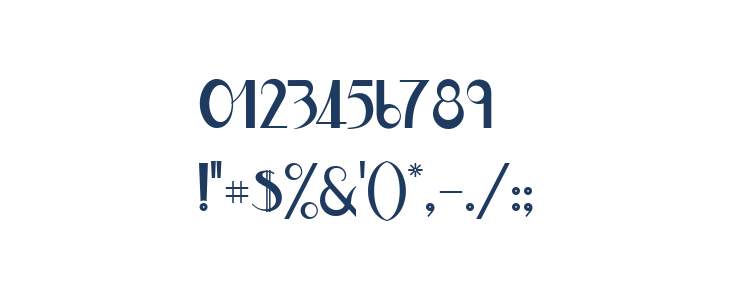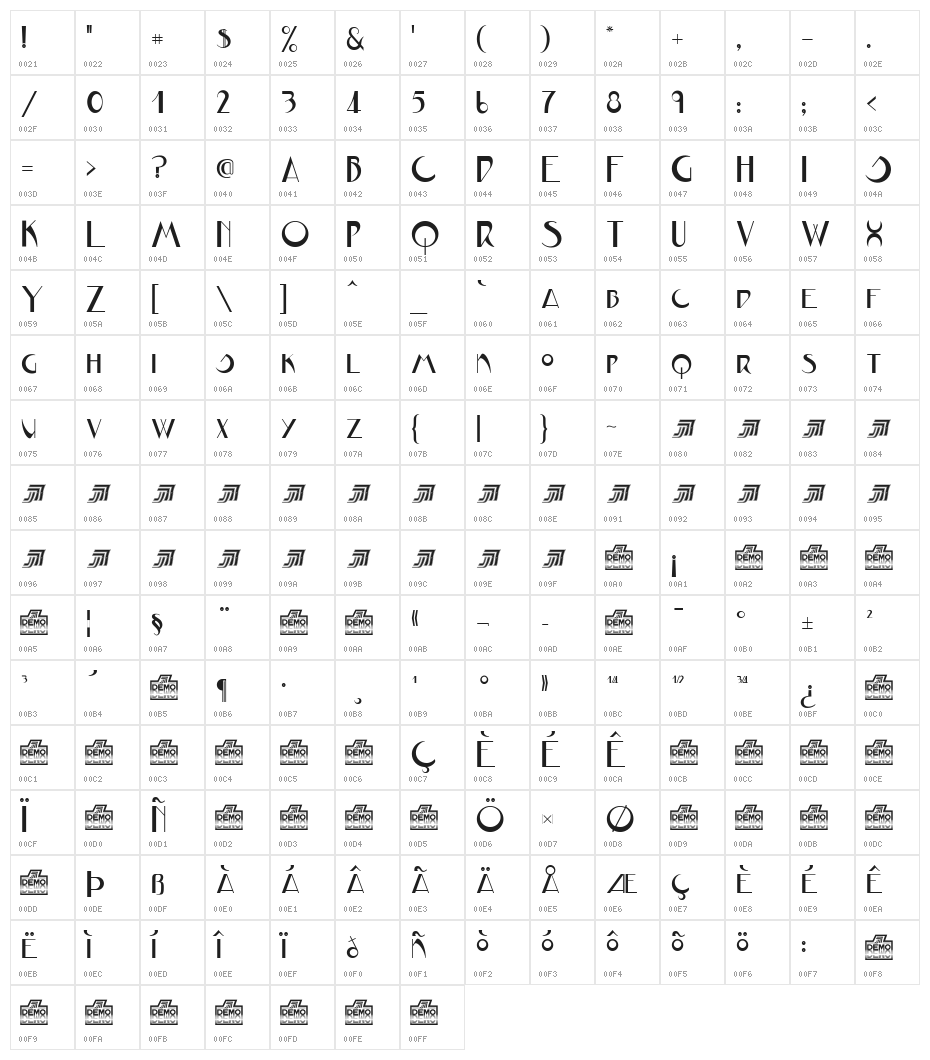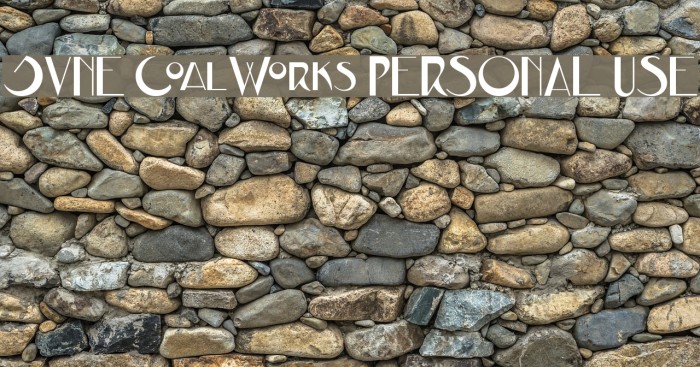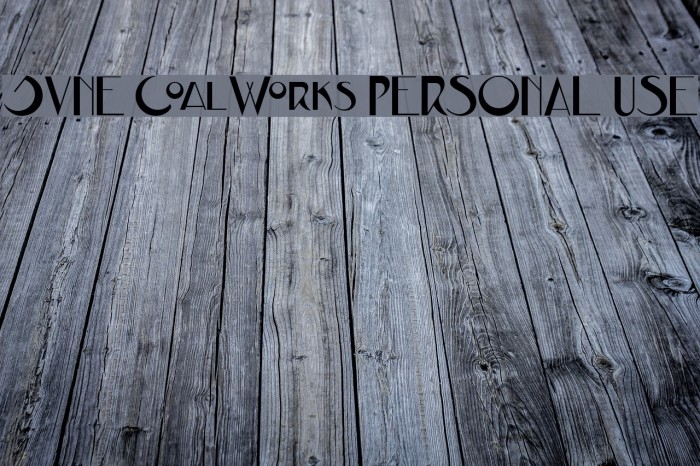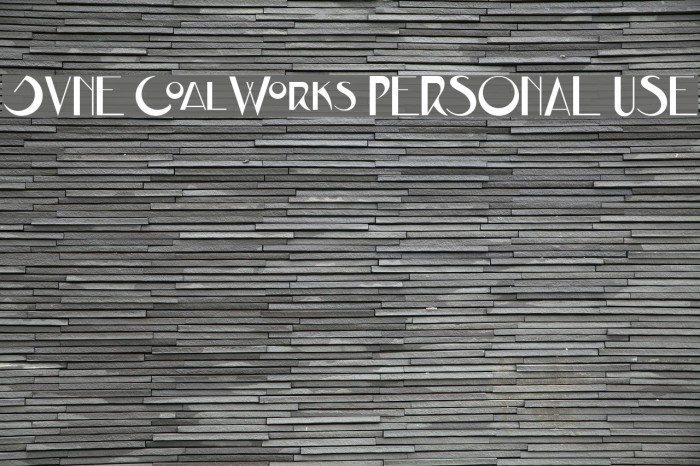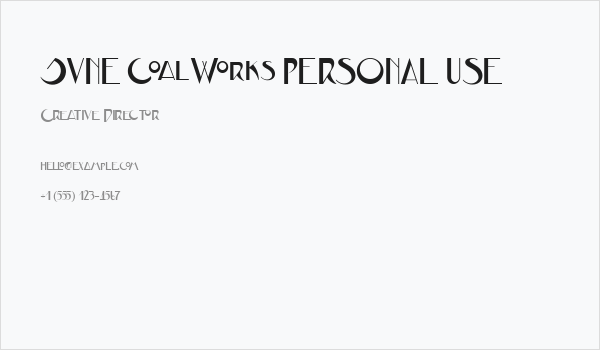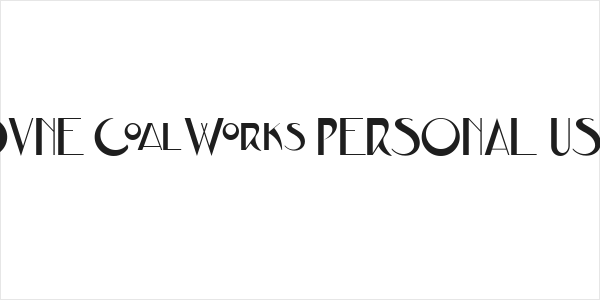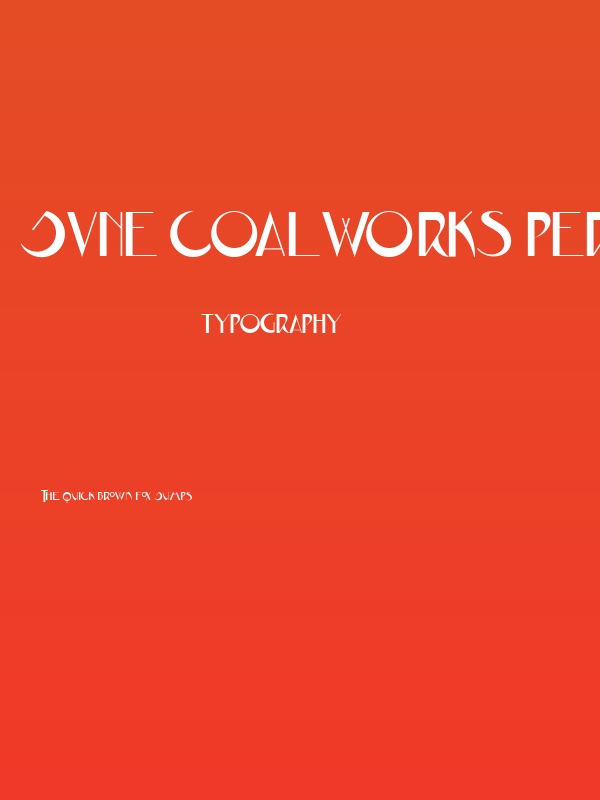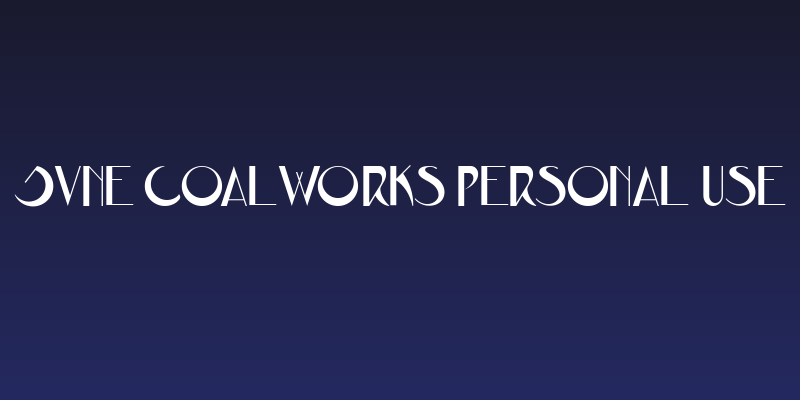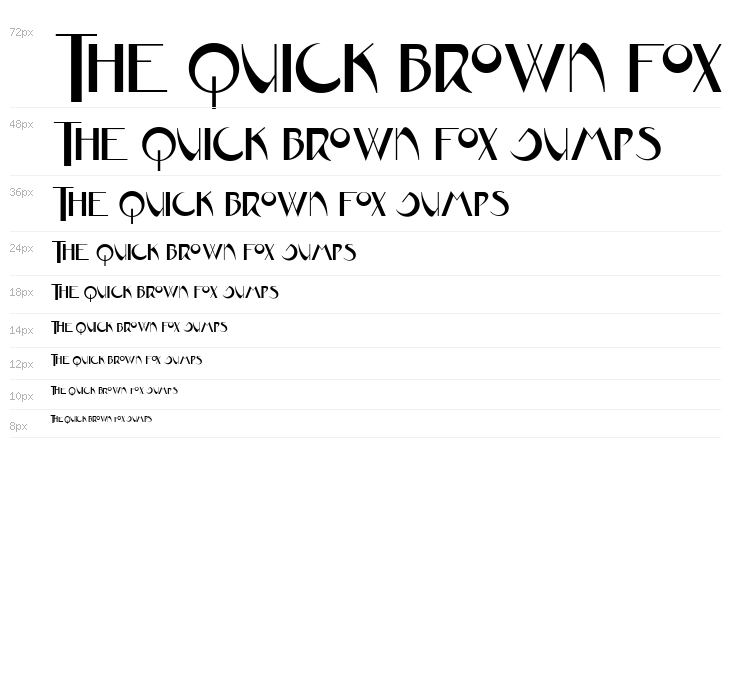
JVNE CoalWorks PERSONAL USE Font
JVNE CoalWorks PERSONAL USE Description
This font features a bold and geometric design with a modern flair. The uppercase letters are characterized by sharp angles and clean lines, creating a striking and futuristic appearance. The lowercase letters maintain a consistent style, with unique shapes that add a touch of elegance. Numbers are designed with the same geometric precision, ensuring readability and visual appeal. Special characters are crafted to match the overall aesthetic, making this font versatile for various design needs. Its distinct style makes it suitable for projects that require a contemporary and eye-catching look.
| Proposed Projects | Ideal for branding, posters, digital media, and any project seeking a modern, eye-catching aesthetic. |